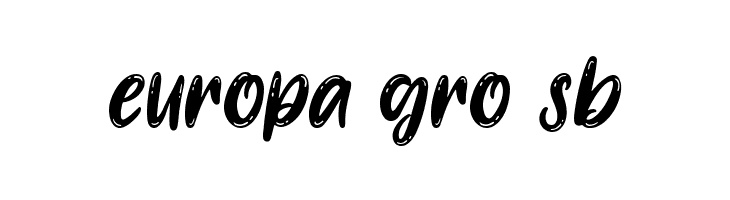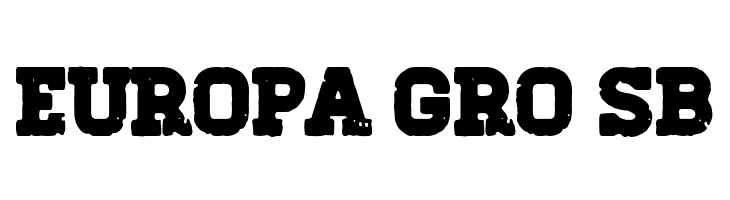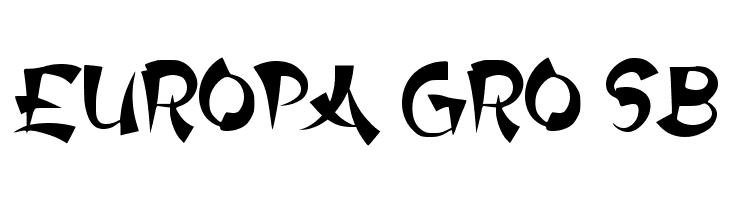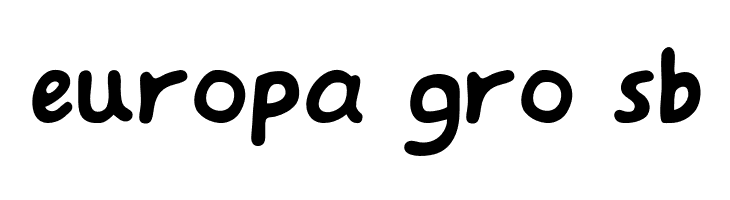
A dot matrix style font with a digital, retro feel.
A pixelated, LED-inspired font with a modern, digital aesthetic.
A dynamic, cursive script font with elegant, flowing strokes.
A dynamic and expressive handwritten script font with a modern flair.
A playful, bold, and rounded font with a hand-drawn appearance.
A playful, handwritten font with bold strokes and dynamic slant.
A playful, bold handwritten font with smooth, rounded strokes.
A bold, playful font with rounded, bubbly characters ideal for retro-themed designs.
A bold, playful font with dynamic, brush-like strokes and high contrast.
A playful, hand-drawn font with tall, narrow characters and a whimsical style.
A bold, playful sans-serif font with rounded, cartoonish letterforms.
A dynamic and elegant script font with bold, flowing letterforms.
A bold, Gothic-style font with intricate, angular lines and ornate serifs.
A geometric, angular font with a modern and structured appearance.
A modern, geometric typeface with rounded edges for a friendly look.
A bold, elegant script font with flowing curves and ornate flourishes.
A playful and elegant script font with a handwritten touch.
A bold, geometric font with a filled, 3D appearance and sharp angles.
A bold, hollow, 3D-effect font with a modern and dynamic style.
A bold, geometric font with a 3D effect and textured grid pattern.
A bold, 3D geometric font with shadow effects and inline details.
A whimsical and artistic font with curvy, fluid strokes and dynamic character design.
A hand-drawn, whimsical font with irregular strokes and a casual feel.
A modern, minimalist font with tall, narrow characters and thin strokes.
A sleek, italicized font with thin, elongated characters for a modern look.
A bold, dynamic script font with a handwritten, expressive style.
A bold, playful handwritten font with dynamic strokes.
A bold, distressed font with a rugged, hand-painted appearance.
A bold, geometric font with a futuristic and modern design.
A bold, angular font with a futuristic and edgy design.
A bold, decorative font with intricate, swirling details and a calligraphic flair.
A bold, futuristic font with rounded edges and a digital aesthetic.
A playful, handwritten font with quirky, irregular shapes and creative symbols.